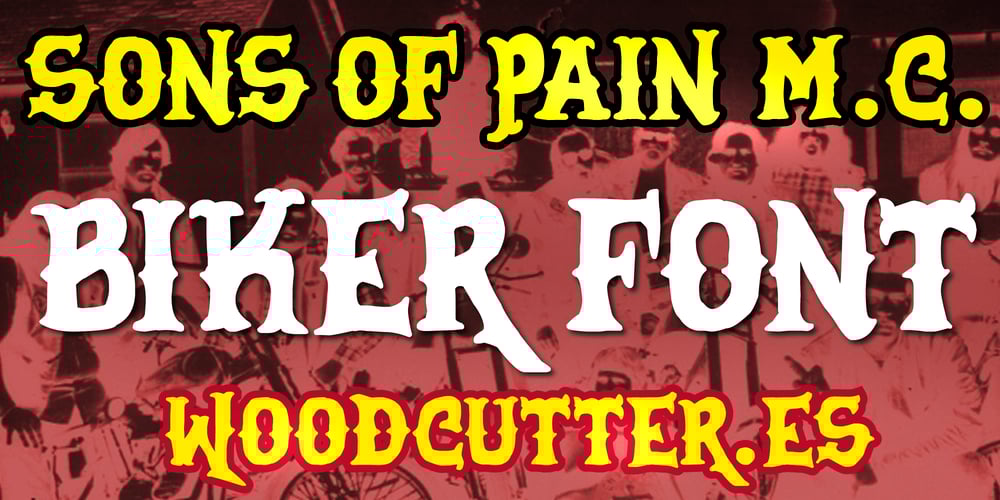
Sons of Pain M.C. Font Family was designed by Jordi Manero and published by Woodcutter. Sons of Pain M.C. contains 1 styles and family package options. “Sons of Pain M.C.” is a robust, biker-style font that captures the essence of the Old West with a strong, handmade touch. Inspired by old-school lettering, each character conveys a sense of strength and rebellion, perfect for those seeking an authentic and rugged style. Its handcrafted strokes give it an artisanal feel, while its solid design ensures a powerful visual impact. Ideal for biker club logos, posters, and any project needing a tough, classic look.